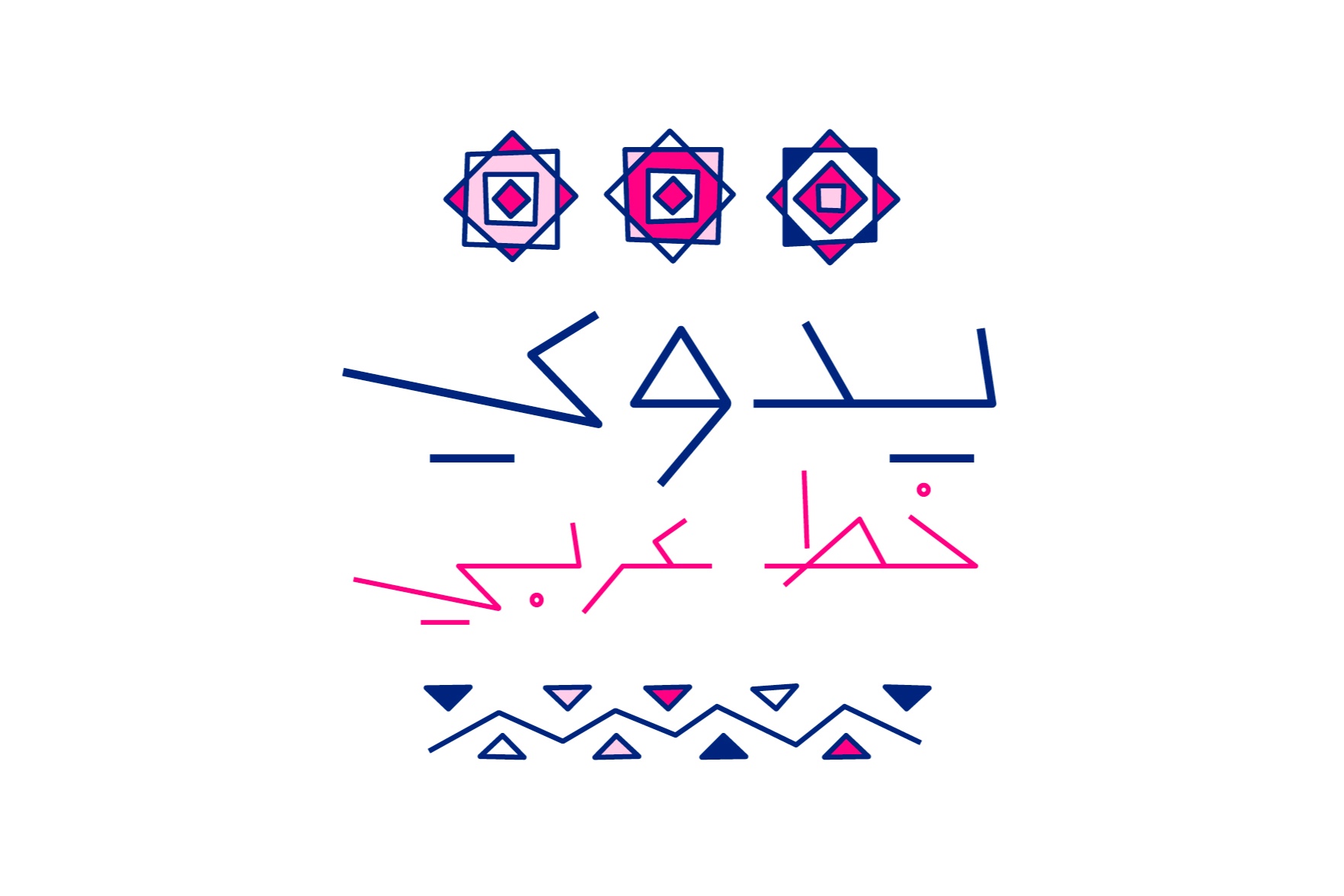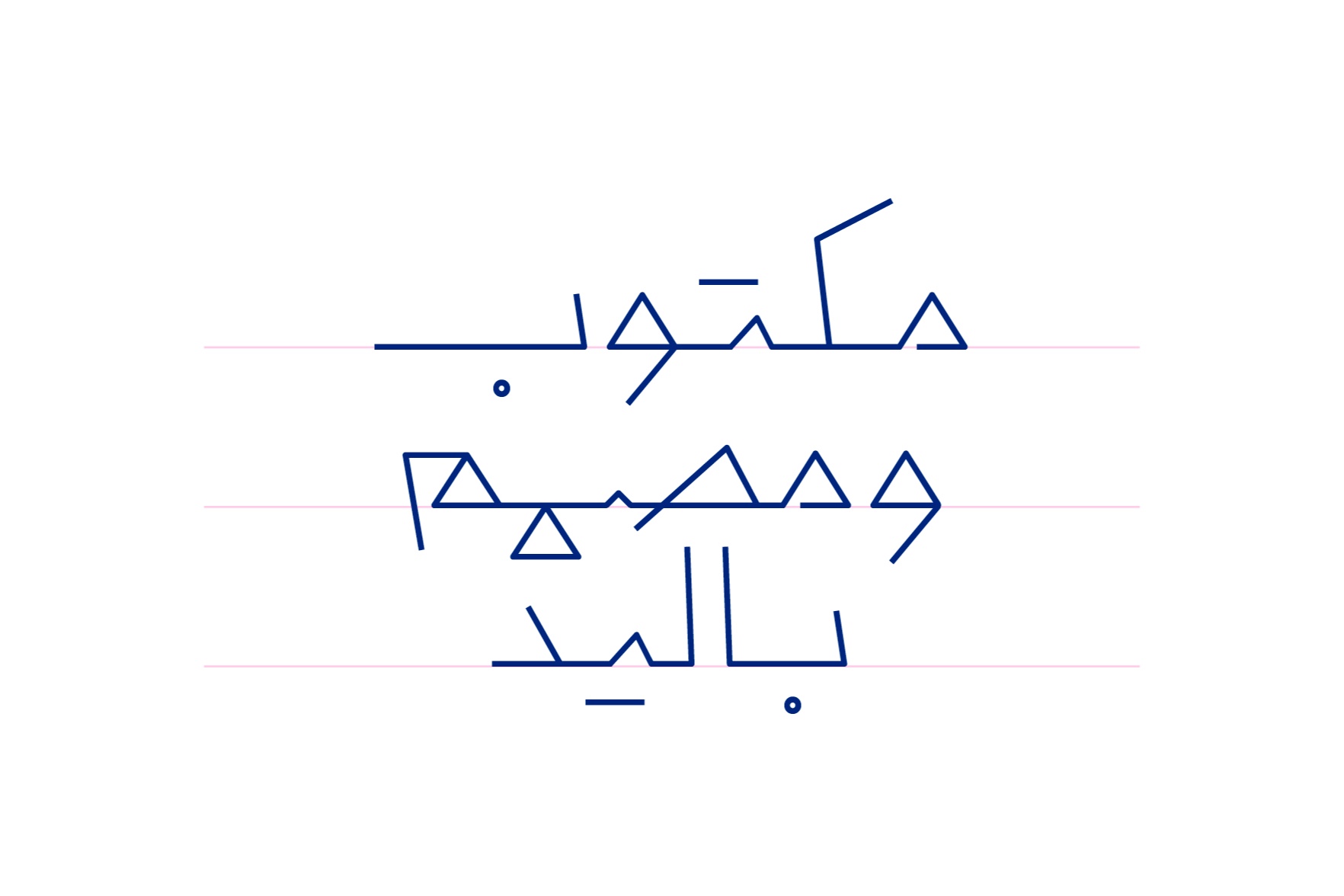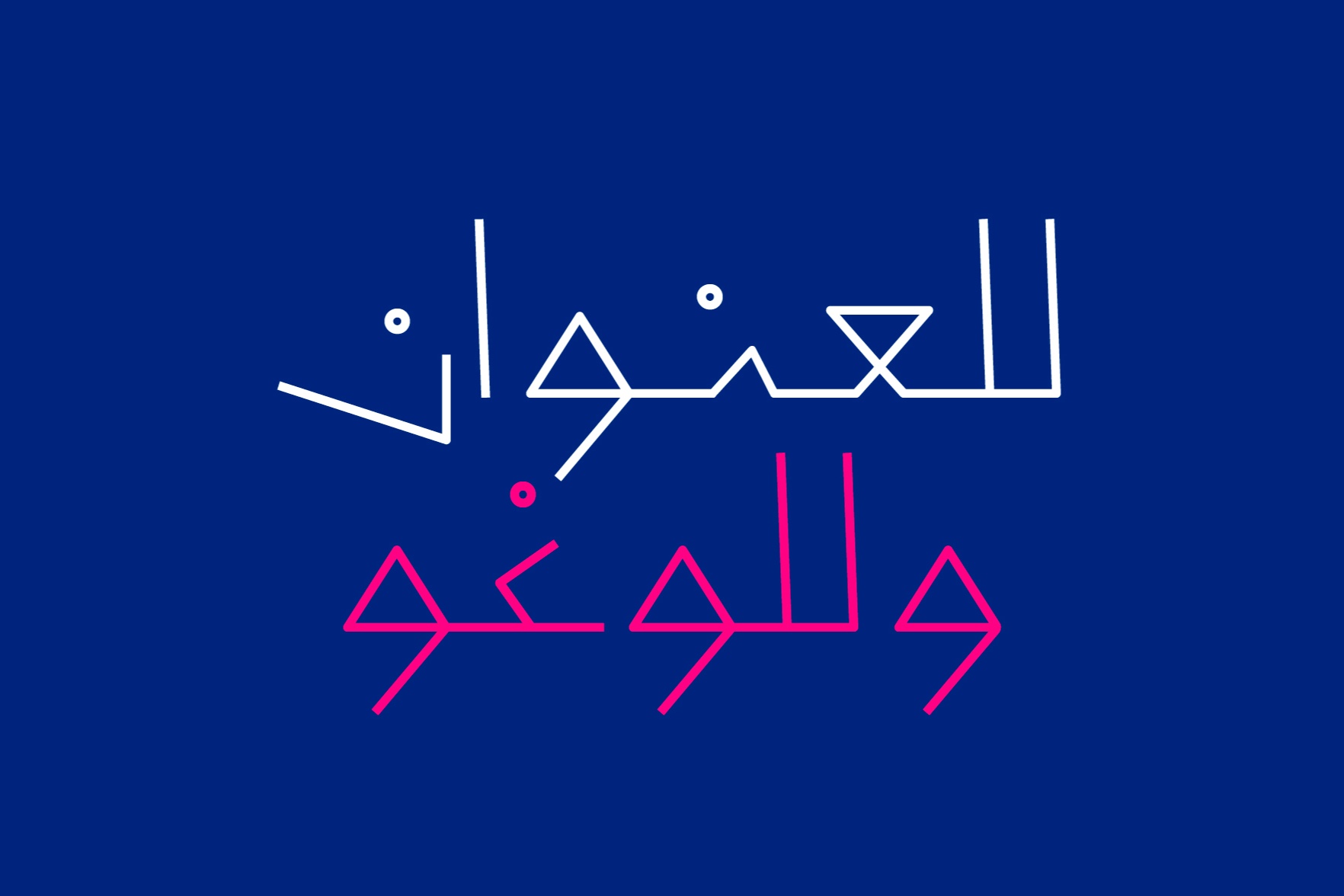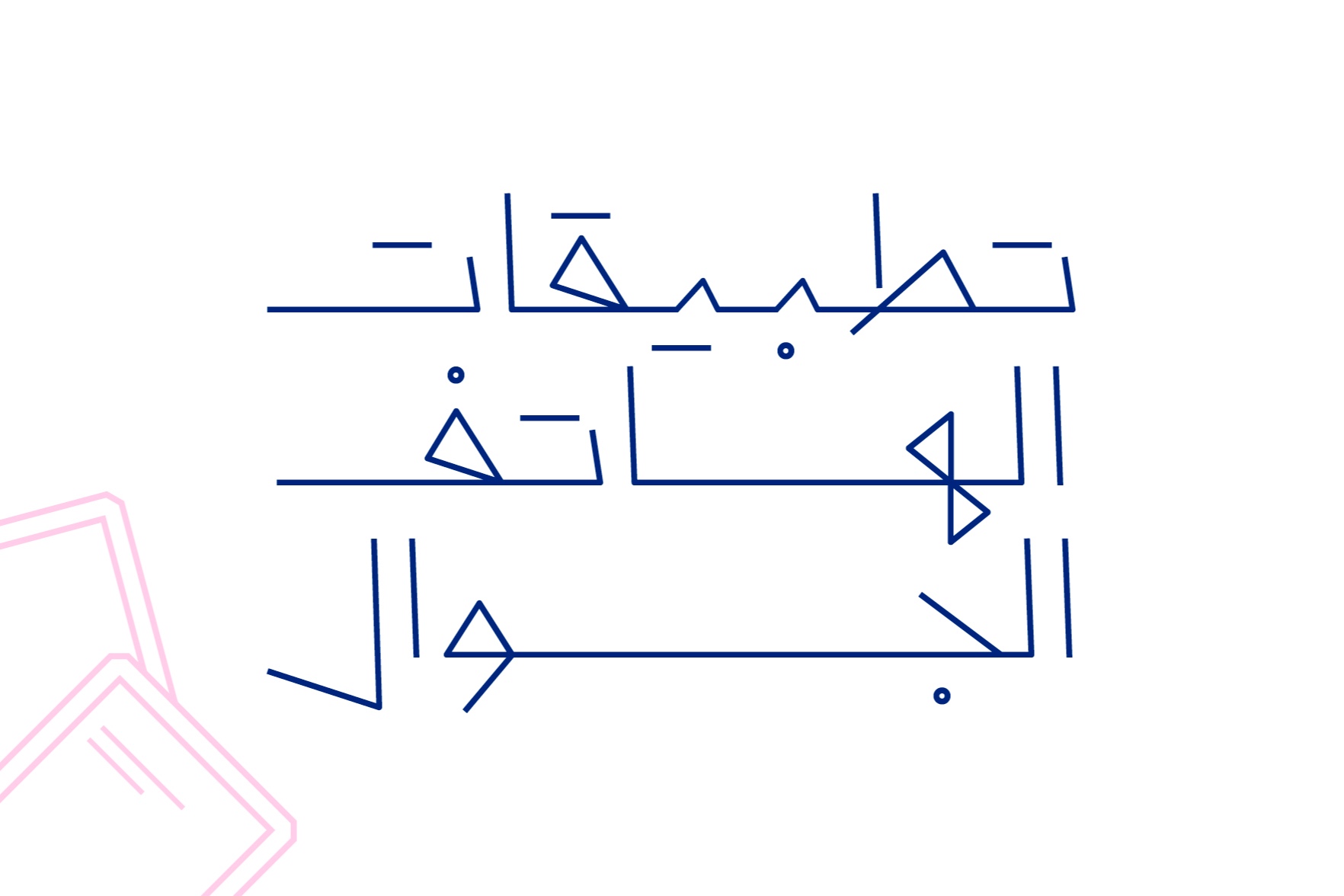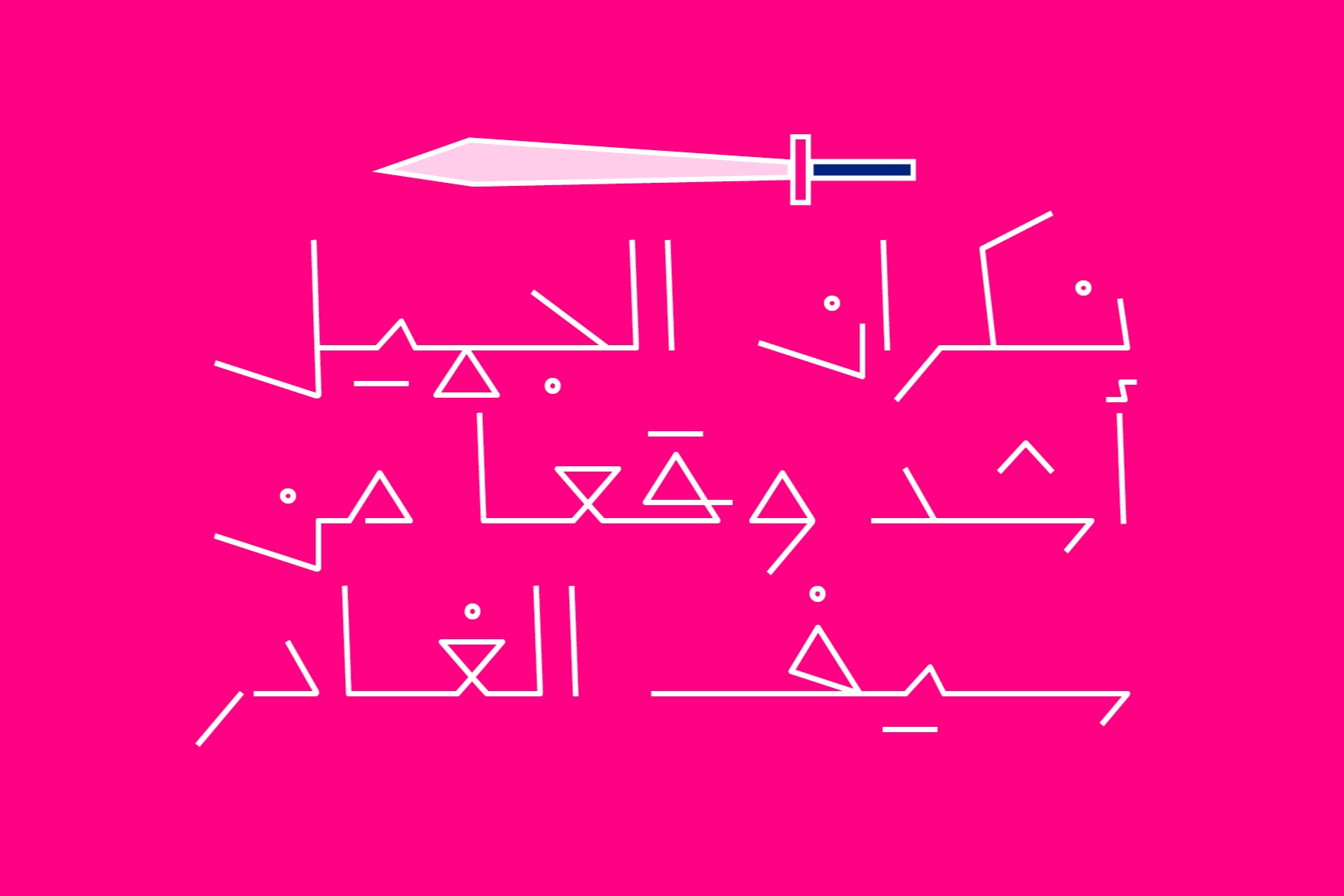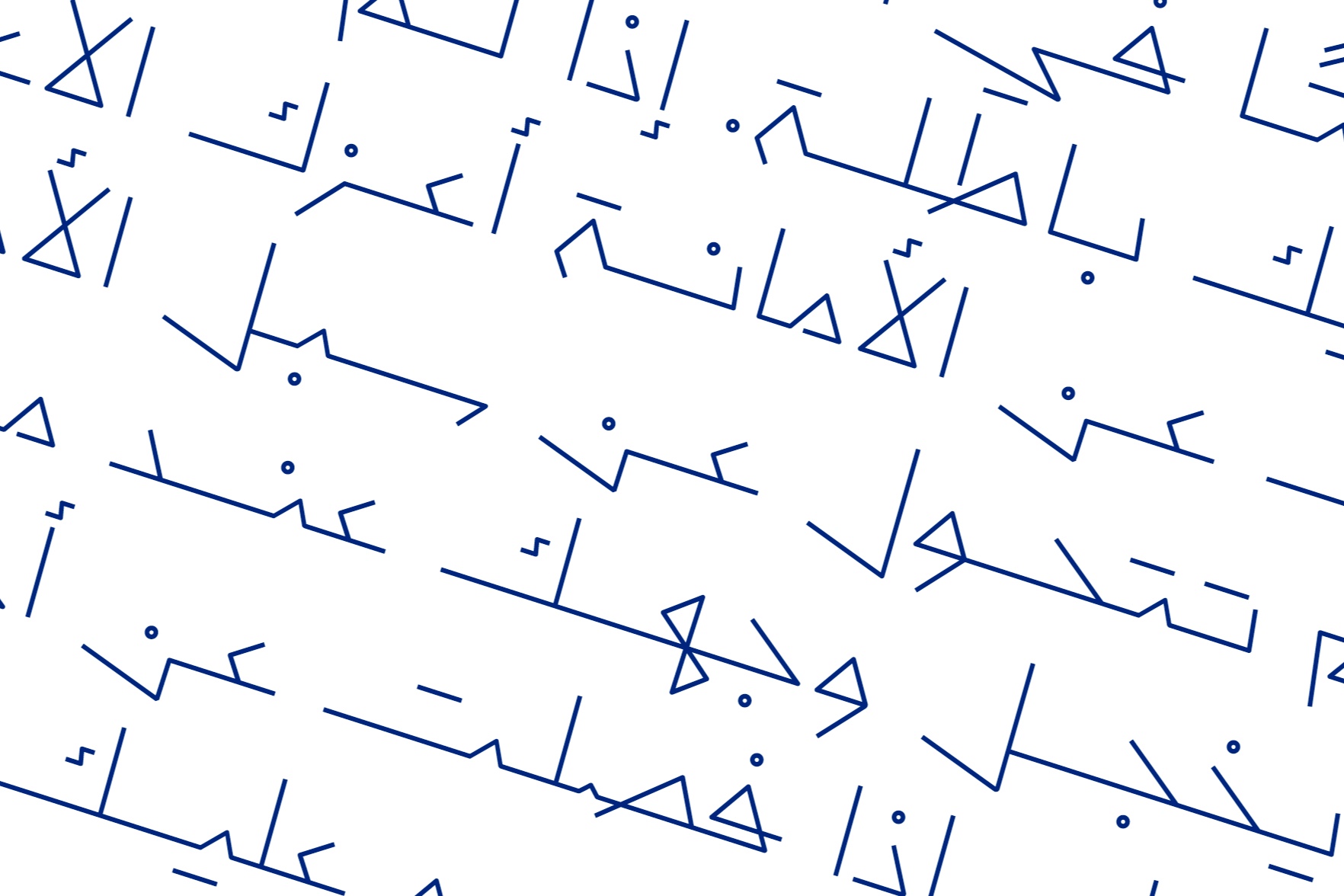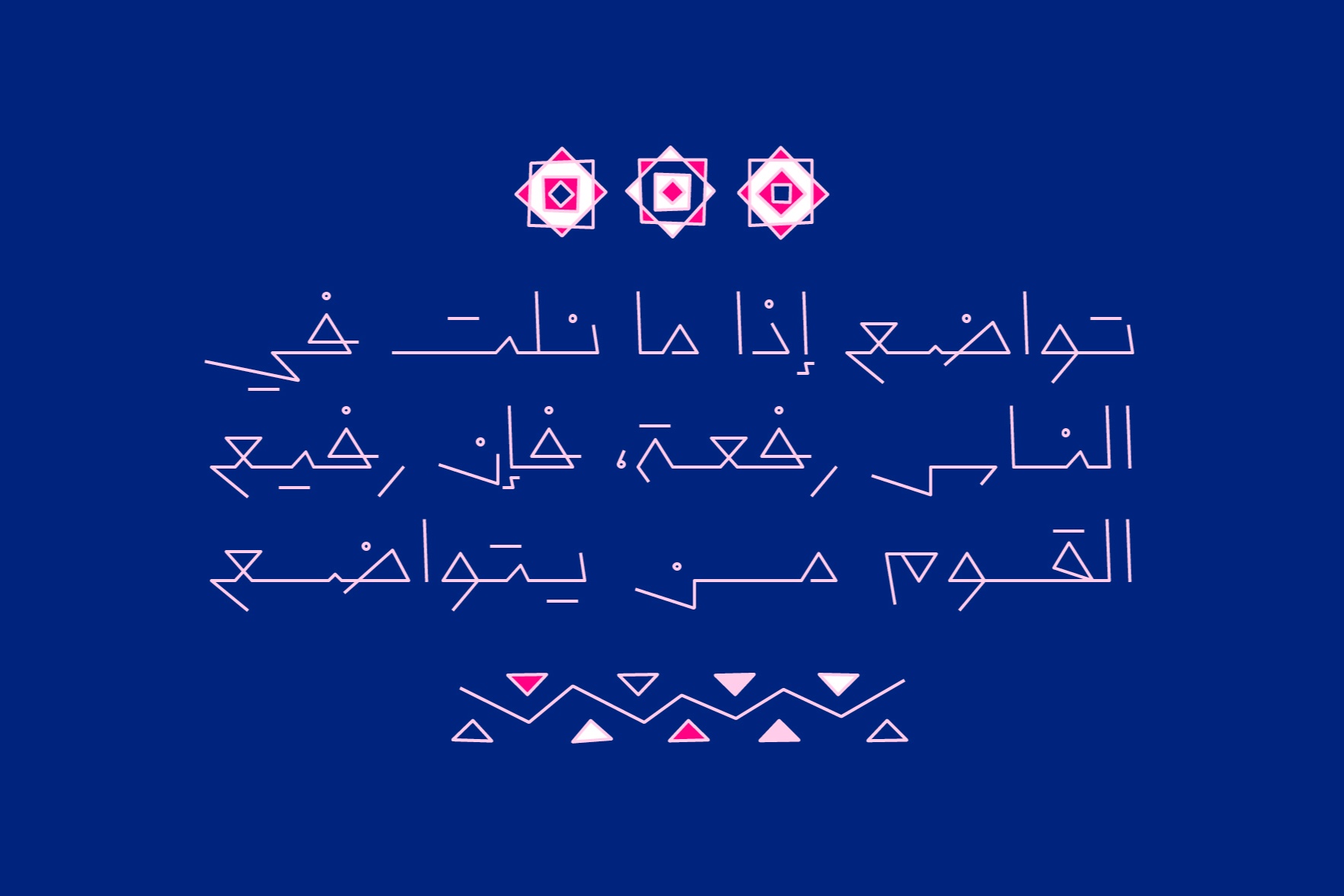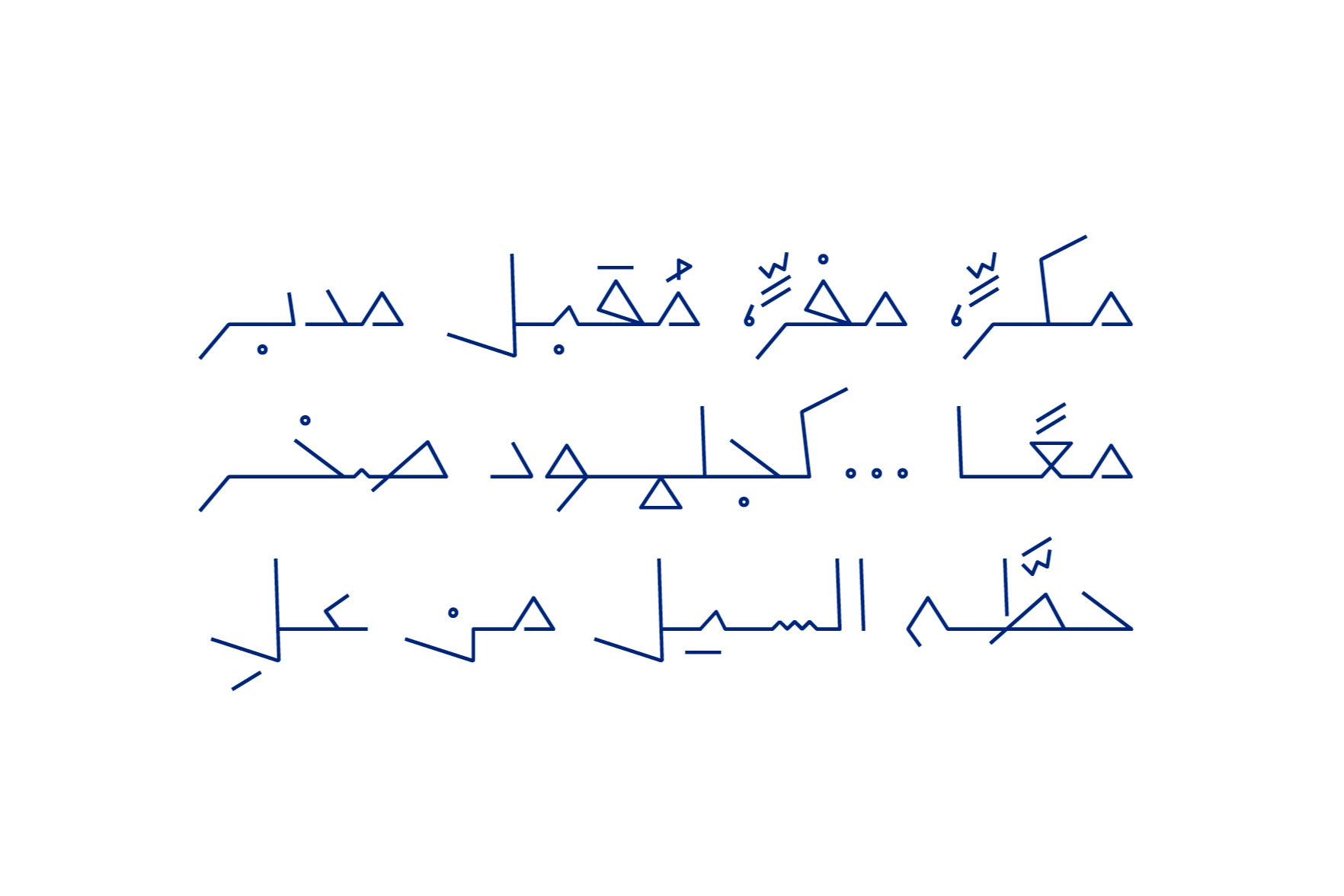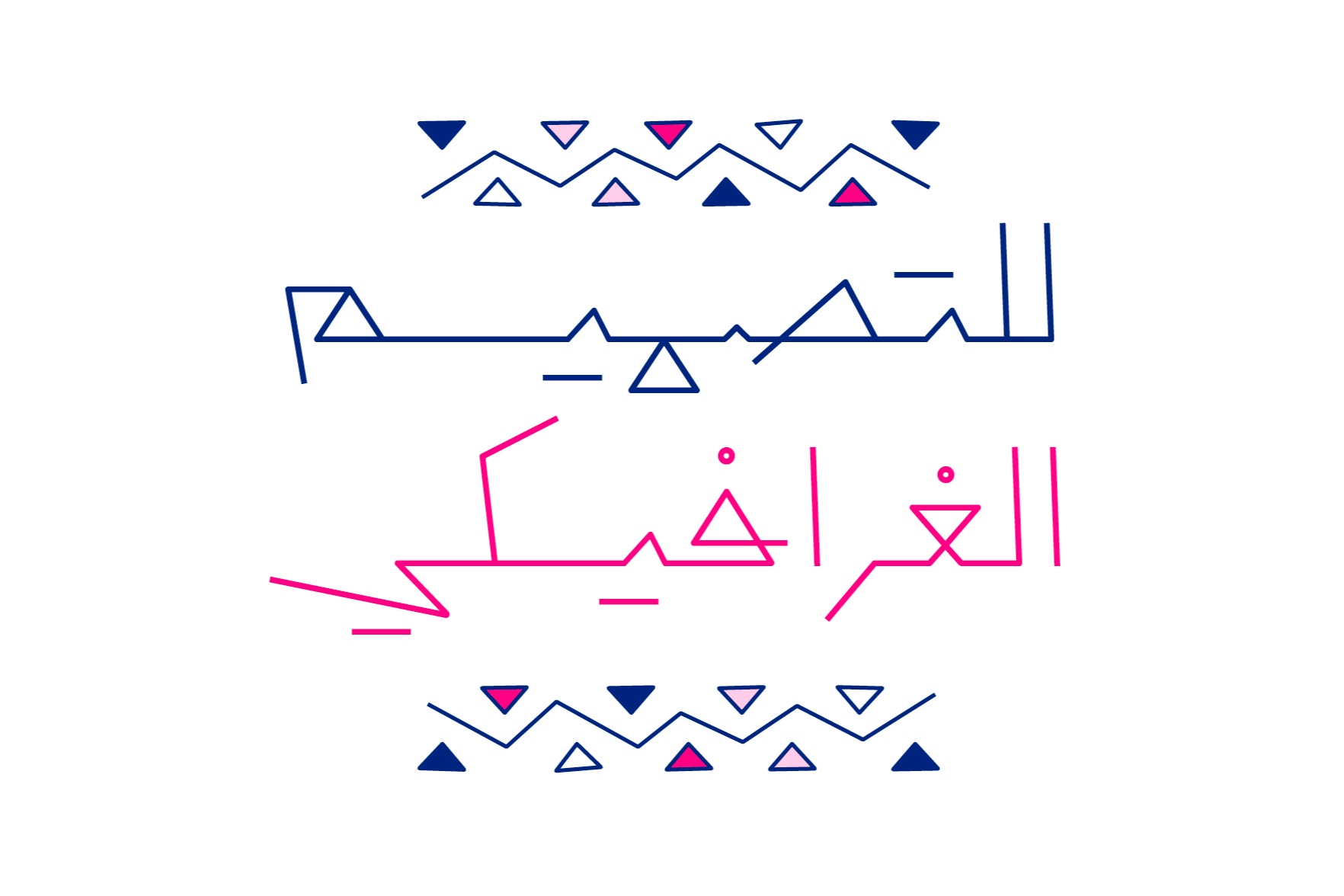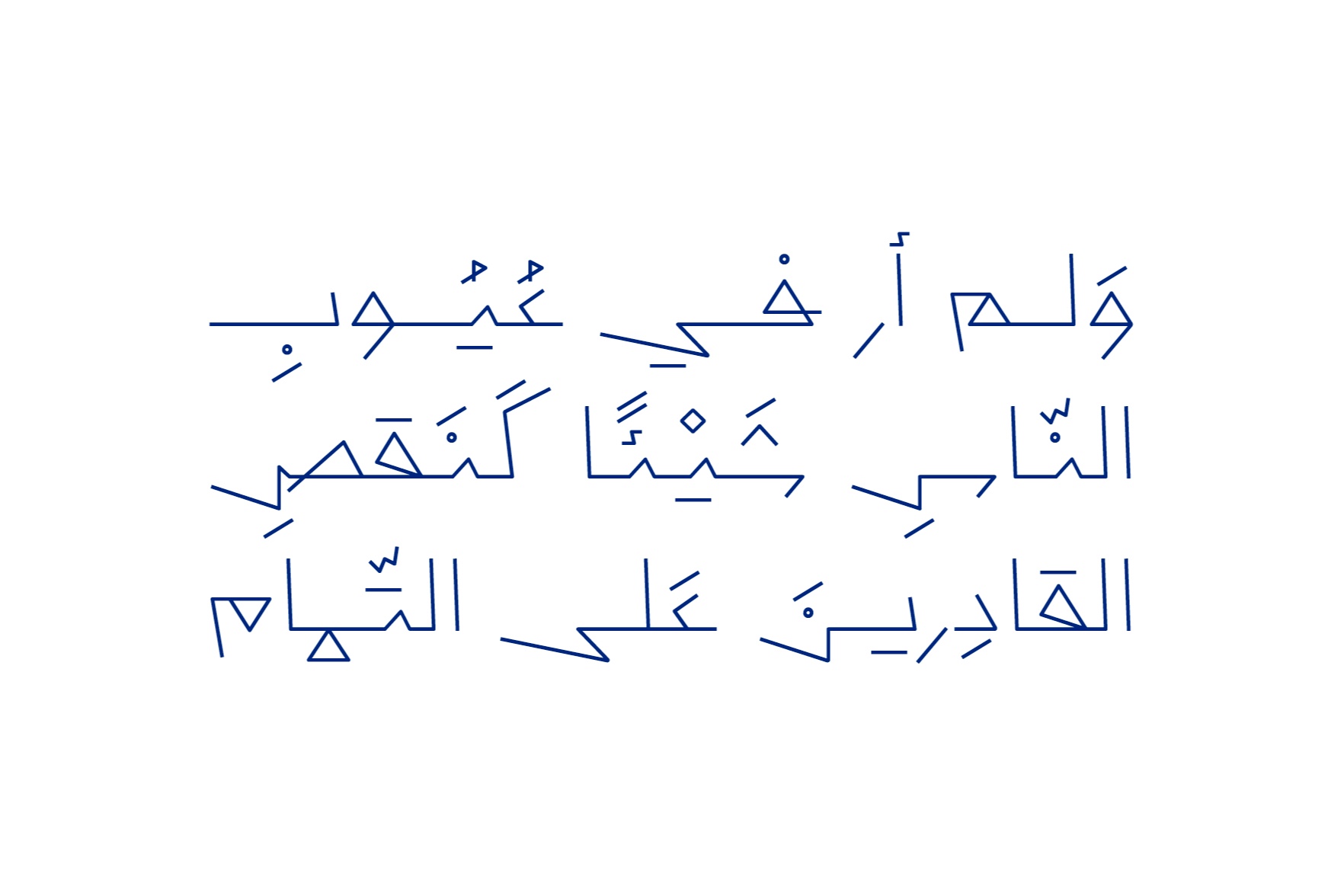
Yadawi (Arabic for “Handmade”) is an Arabic display font. Its letterforms are inspired by a distinctive handwriting style with a geometric touch. Yadawi is well-suited for web, print, and mobile applications.